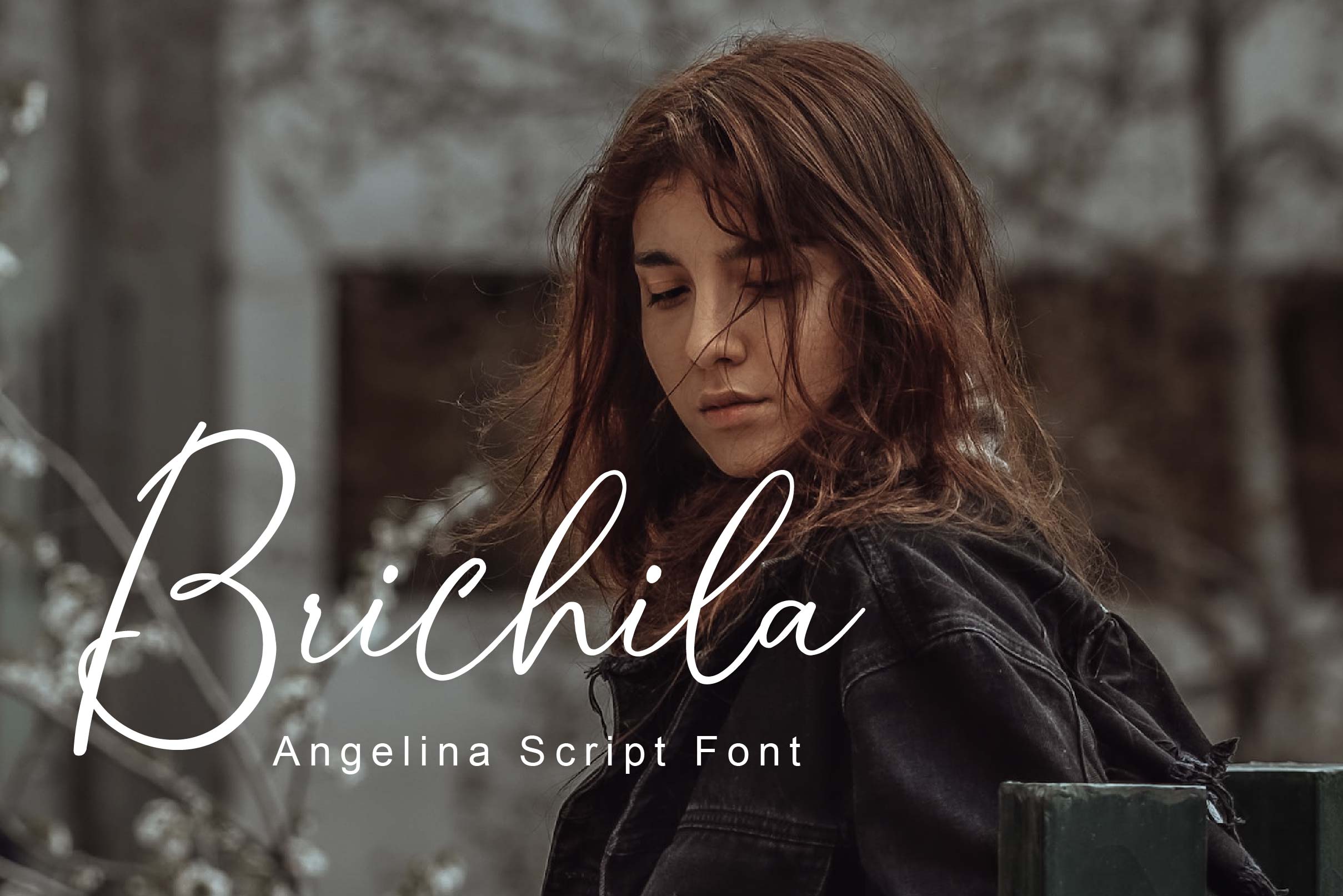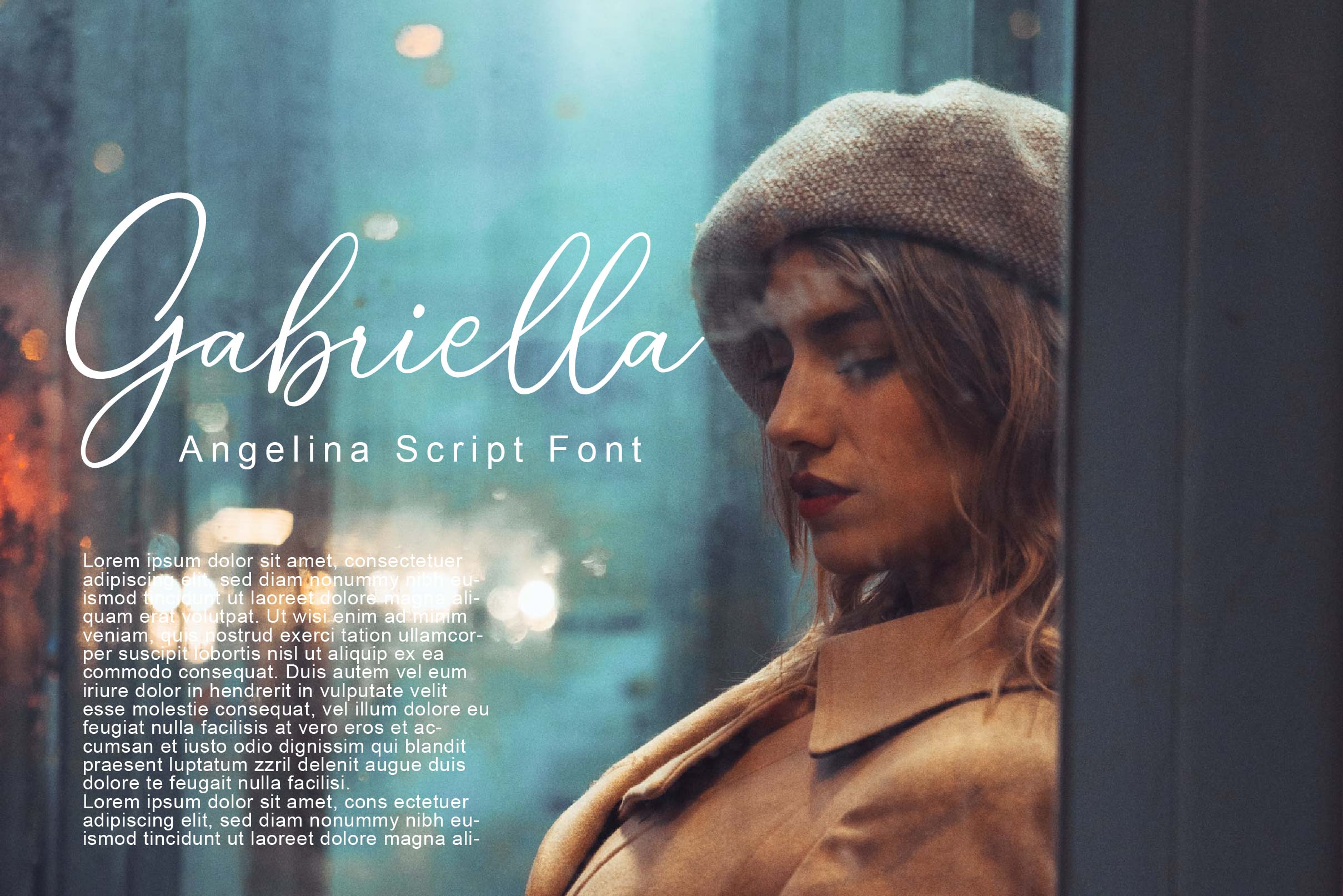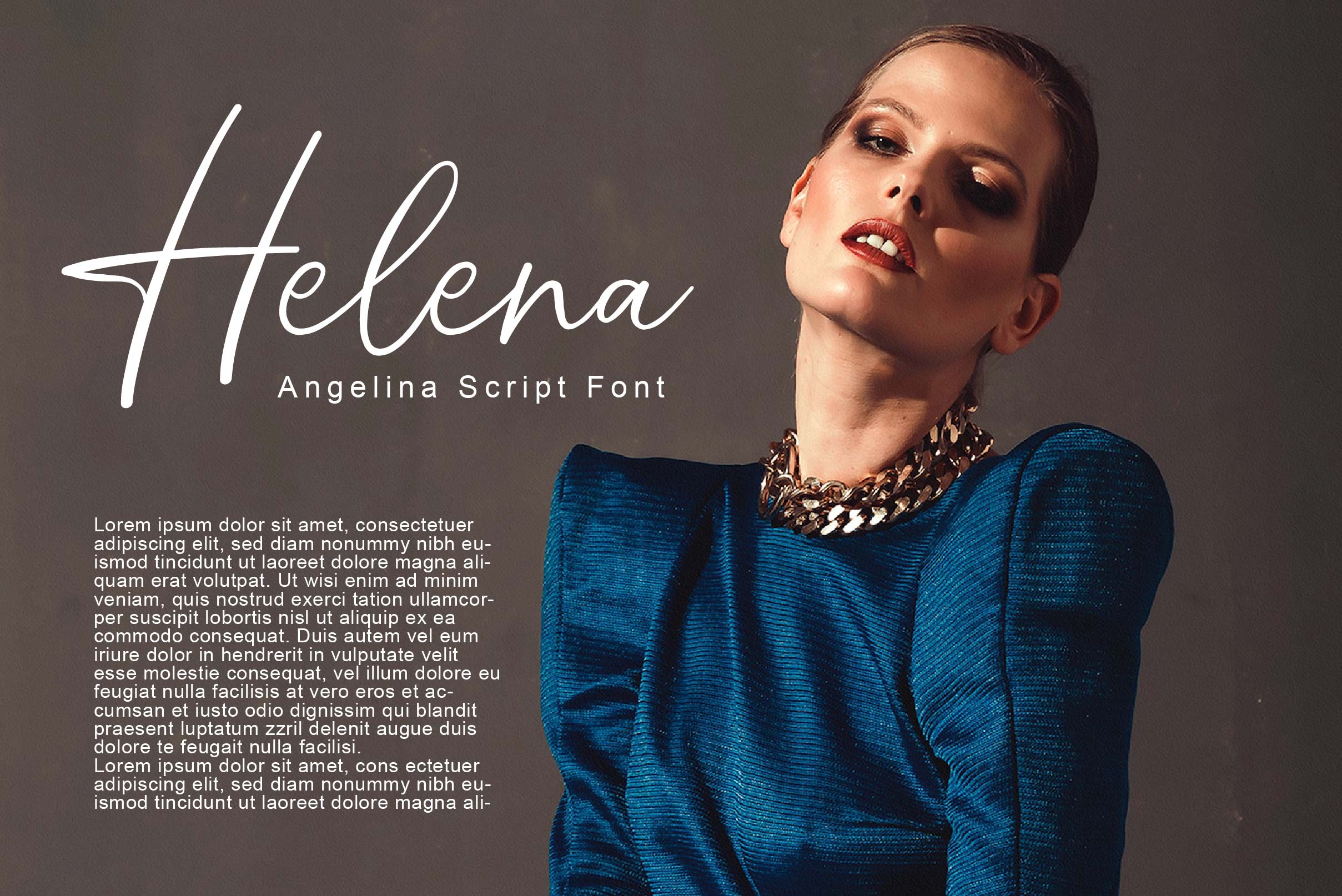
Angelina Handwritten Typeface
Angelina Handwritten Typeface feels equally charming and elegant. It looks stunning on wedding invitations, thank you cards, quotes, greeting cards, logos, business cards and every other design which needs a handwritten touch.
– Uppercase, Lowercase, Numeral & Punctuation
– Alternate Letters, Ligature & Swash/Tail